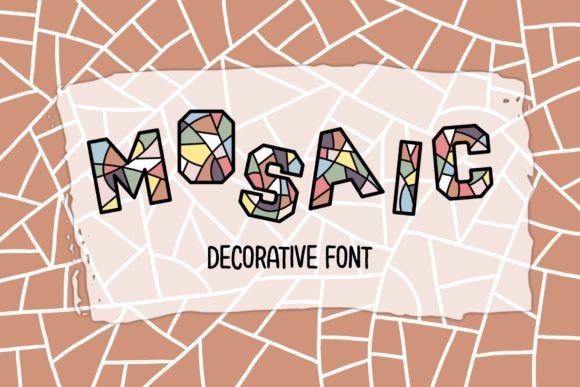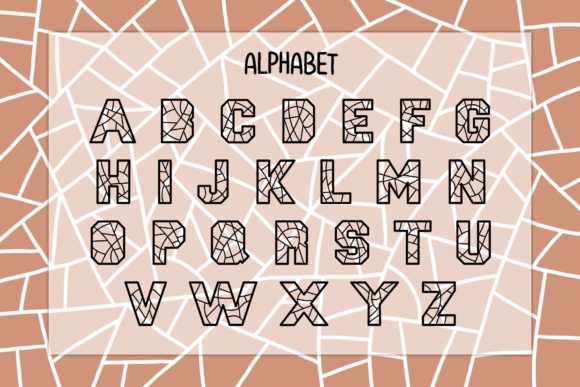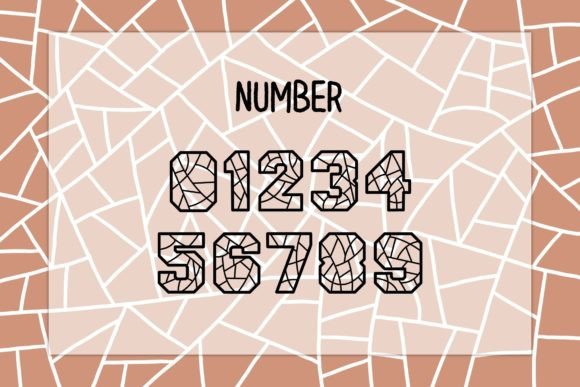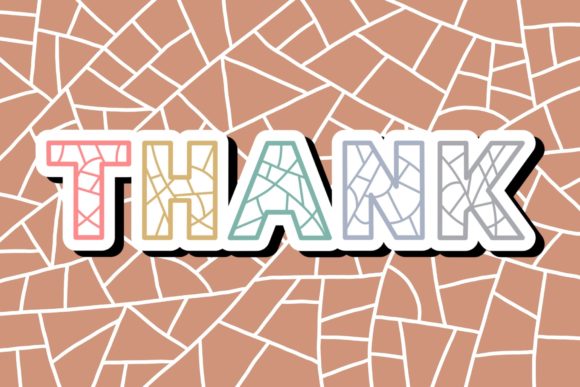
Mosaic Font: Unique Decorative Font for DIY Crafts & Social Media
About the Mosaic Font
Crafted with precision, the Mosaic Font is ready to bring your ideas to life. Mosaic is a Decorative font. This font is the perfect fit for all of your logos, branding, social media, crafty DIY projects, and much more!
Mosaic’s decorative style shines in headlines, logos, and short-form text for branding projects and social media graphics. Its strong visual presence makes it ideal for eye-catching posters and packaging where impact is key. However, its intricate details make it unsuitable for body text or UI elements where readability is paramount. Avoid using it for long paragraphs or small sizes.
Its bold and slightly playful personality pairs well with clean sans-serif fonts like Open Sans for a balanced contrast, or a more geometric sans-serif like Futura for a modern feel. For a sophisticated look, consider pairing it with a classic serif like Garamond or a delicate script font, used sparingly, to add a touch of elegance.
The overall mood is energetic and attention-grabbing, best suited for brands projecting creativity, fun, and a vibrant identity. Avoid using it for projects requiring a sense of understated elegance or seriousness.